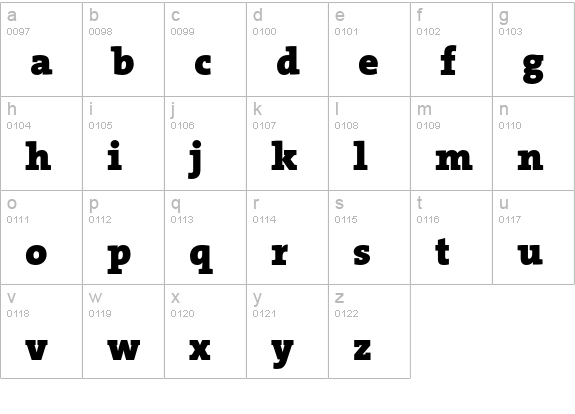
TheSerif Black Plain Font Details
TheSerif Black Plain is a maximum-weight, dramatic variant in the TheSerif typeface family \xE2\x80\x94 well suited to maximum-impact headlines, posters, and packaging.
TheSerif Black Plain font is a versatile typeface that exudes elegance and sophistication. With its bold and sturdy appearance, this font is perfect for creating impactful headlines, titles, and logos that demand attention. The clean and sharp lines of TheSerif Black Plain font make it highly legible even at smaller sizes, making it ideal for both print and digital designs. What sets TheSerif Black Plain font apart is its timeless appeal. Its classic serif design adds a touch of tradition and authority to any project, while its contemporary twist gives it a modern edge. This combination makes it suitable for a wide range of applications, from branding and advertising to editorial design and packaging. TheSerif Black Plain font is free, offering you the opportunity to enhance your designs without breaking the bank. You can freely download this font at FontsMarket.com, a reputable source for high-quality fonts. With just a few clicks, you can add TheSerif Black Plain font to your collection and start using it in your projects immediately. Whether you're a professional designer or a creative enthusiast, TheSerif Black Plain font is a must-have addition to your font library. Its versatility, elegance, and affordability make it an excellent choice for all your design needs. So why wait? Download TheSerif Black Plain font for free today at FontsMarket.com and elevate your designs to new heights.